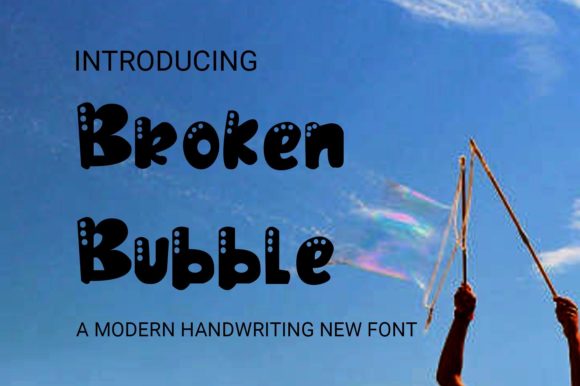
Dive into the world of Broken Bubble's enchanting display font, where creativity and charm collide. This font, meticulously crafted by the artistic minds at Scriptstrategy, is a symphony of playful curves and delicate edges, designed to capture hearts and ignite imaginations. Embark on a journey of artistic expression, where your designs will blossom into captivating masterpieces.
Unleash the boundless versatility of Broken Bubble, a font that seamlessly adapts to a myriad of creative endeavors. Whether you seek to elevate your social media presence, breathe life into DIY projects, or transform your designs into works of art, Broken Bubble will be your steadfast companion. Its enchanting nature knows no bounds, captivating audiences with its undeniable charm and playful spirit.
With Broken Bubble as your creative ally, you'll discover a world of possibilities. Create eye-catching Instagram posts that dance with personality, design greeting cards that warm hearts, and craft digital art that sparks conversations. The possibilities are infinite, limited only by the boundless reaches of your imagination.
Step into the realm of Broken Bubble and let your creativity run wild. Its user-friendly nature makes it accessible to everyone, from seasoned designers to those just starting their artistic journey. Experience the joy of transforming ordinary words into extraordinary expressions, and witness how Broken Bubble transforms your designs into captivating works of art.